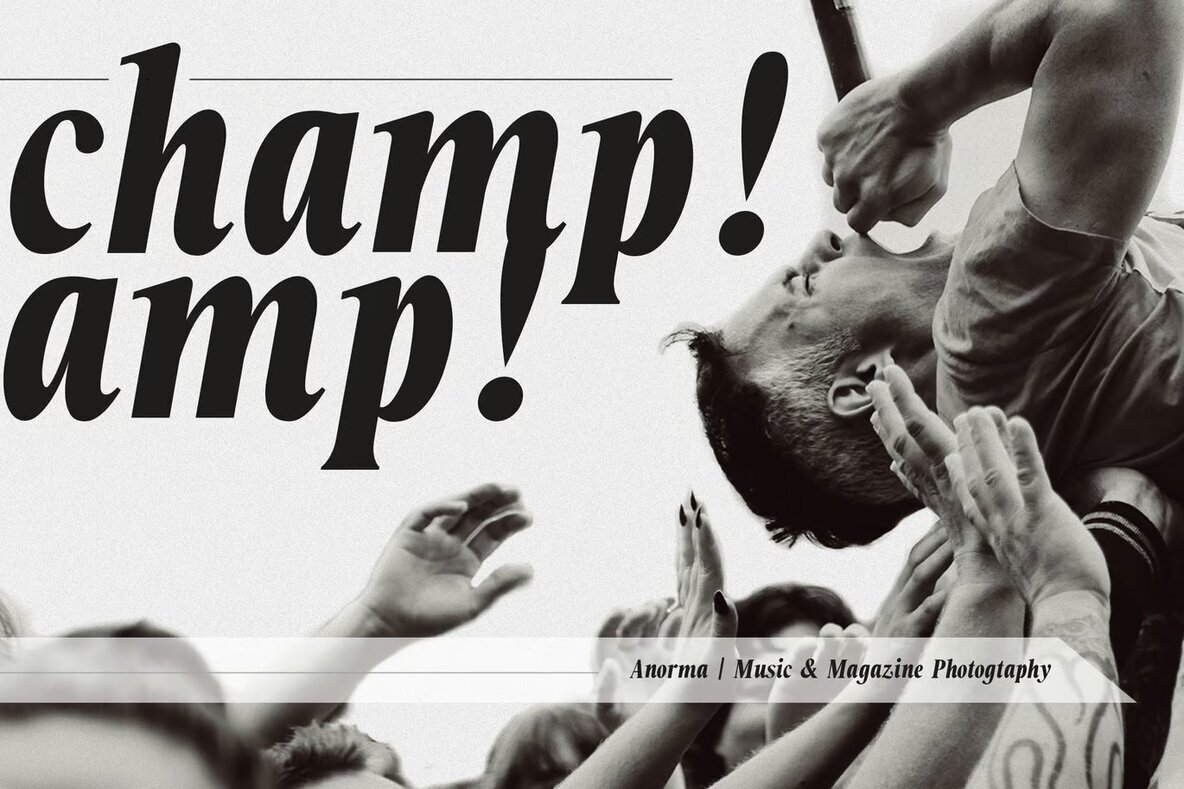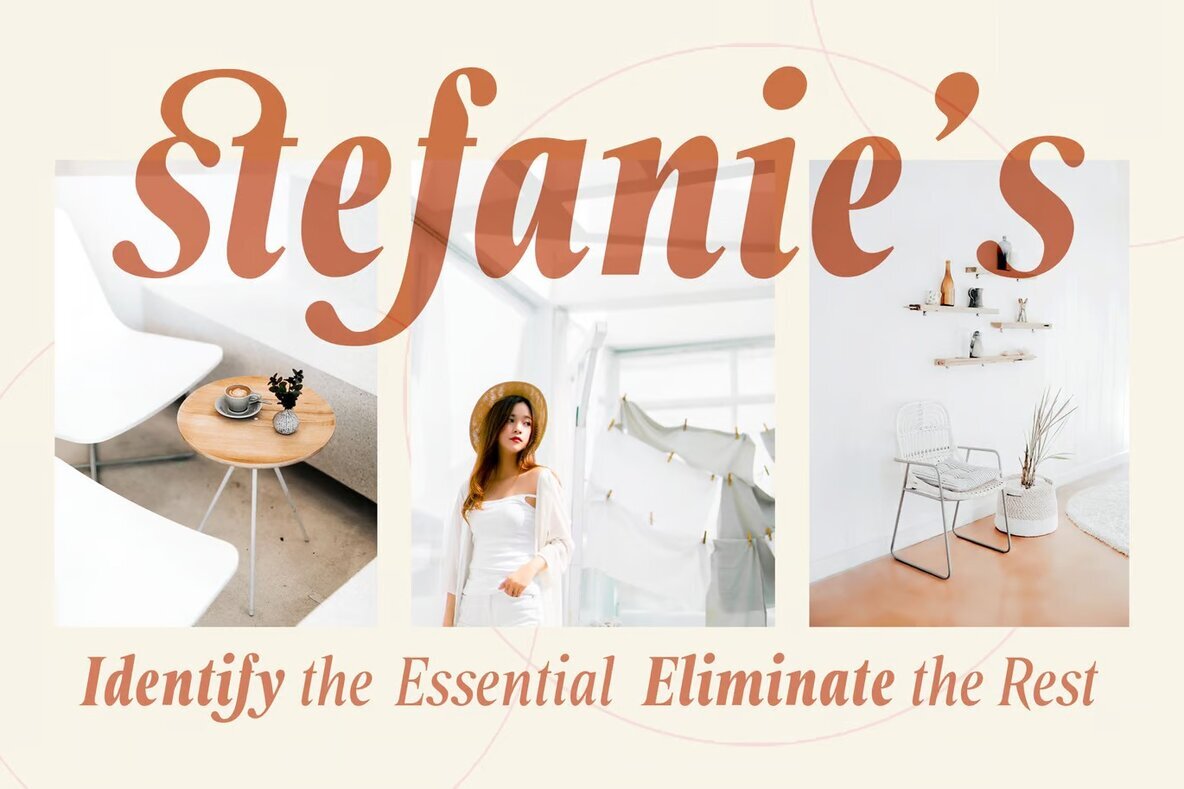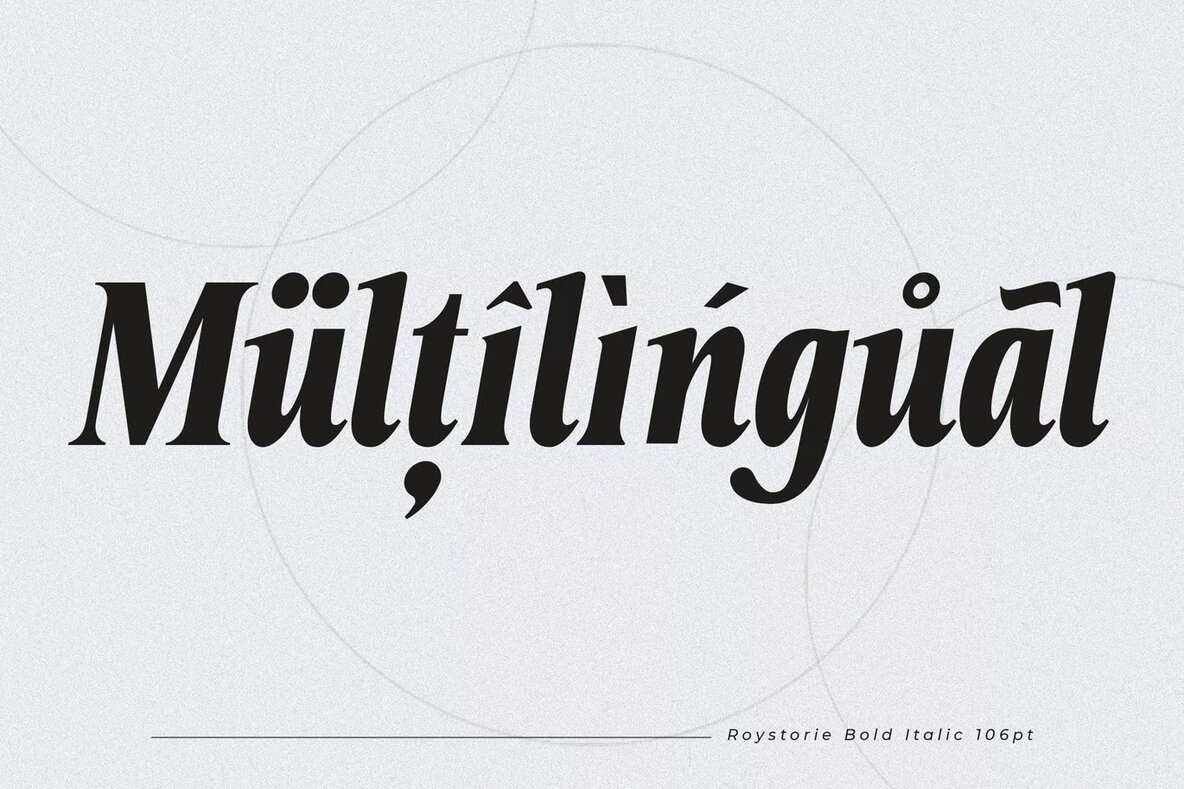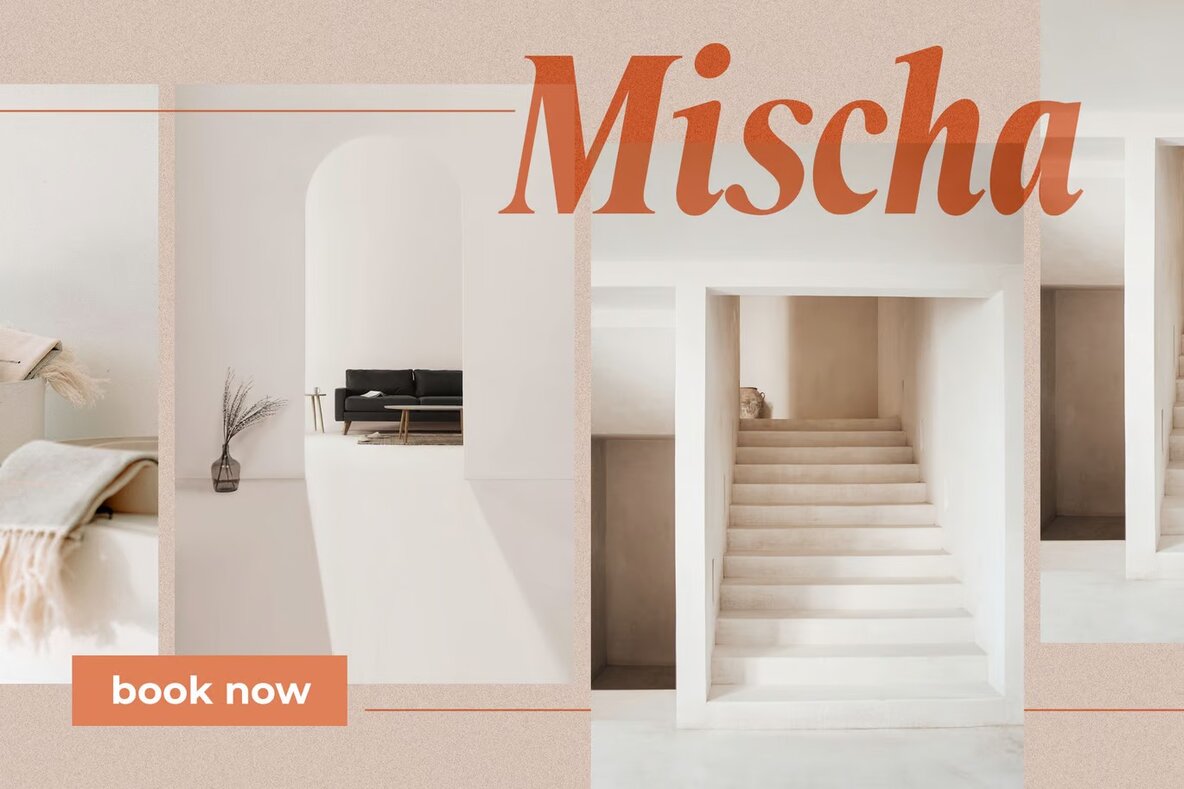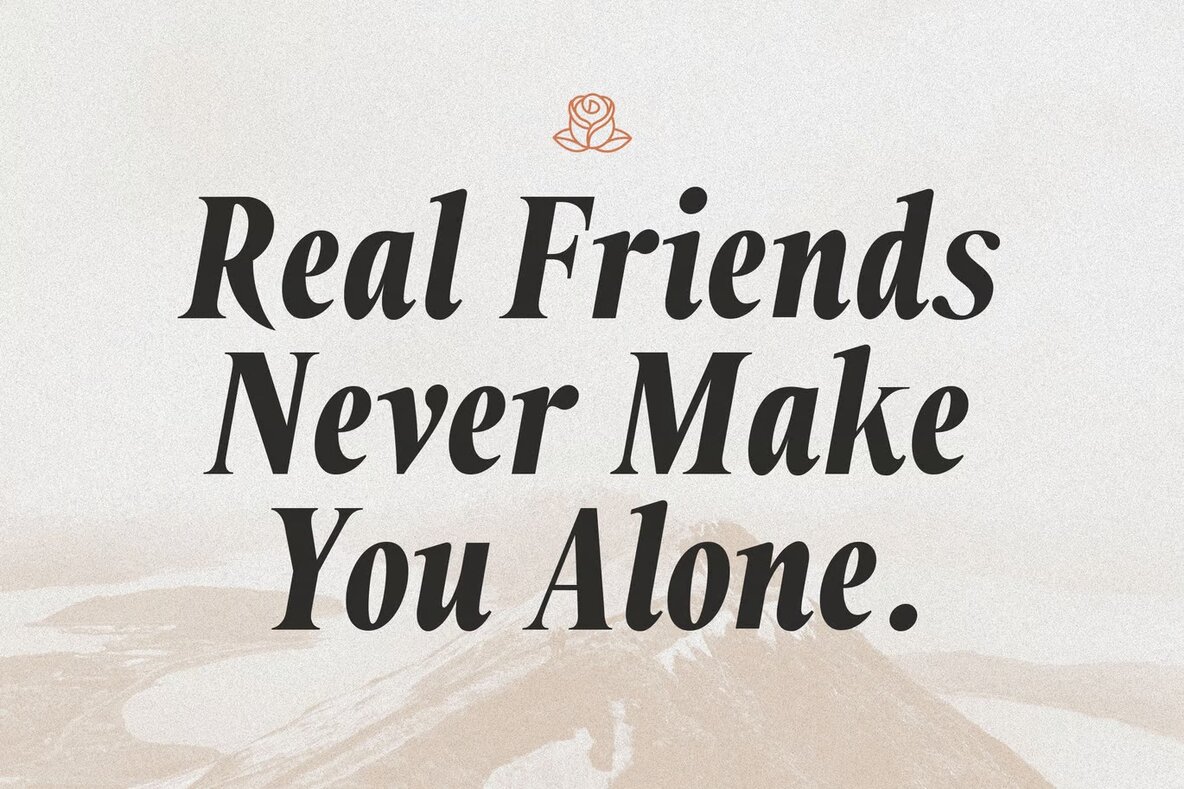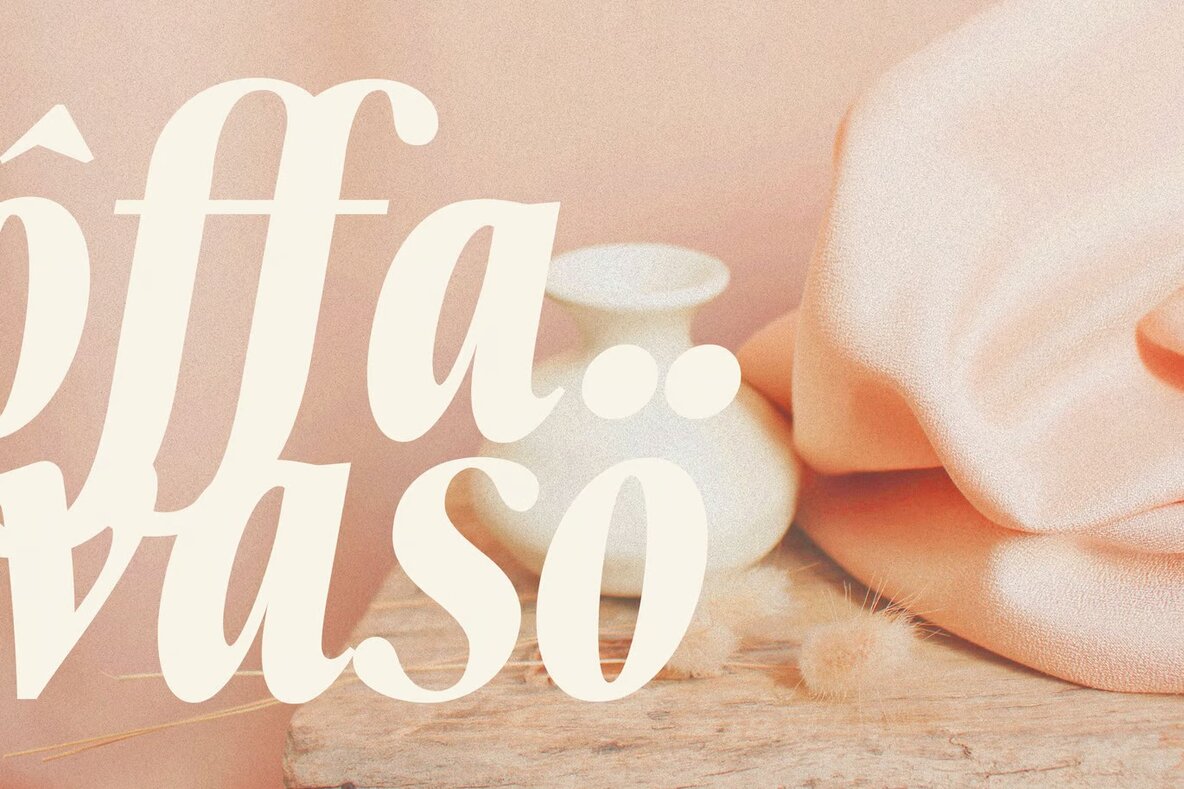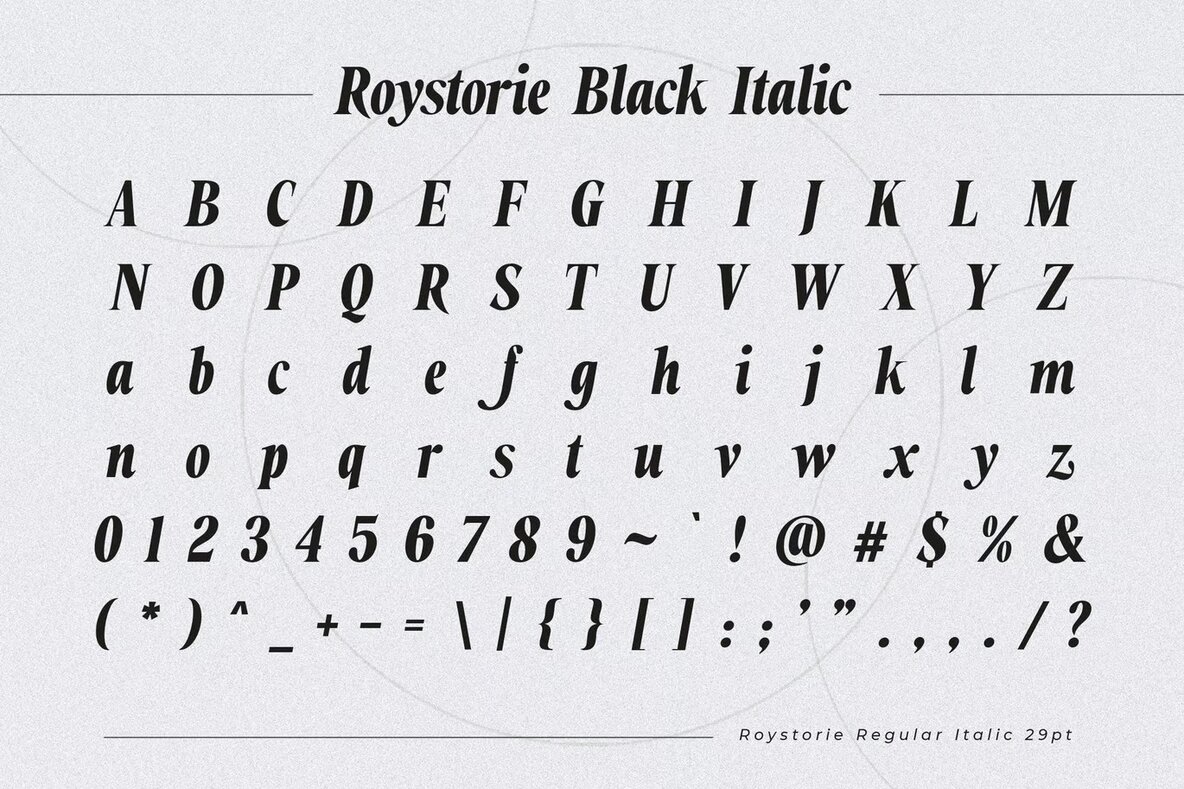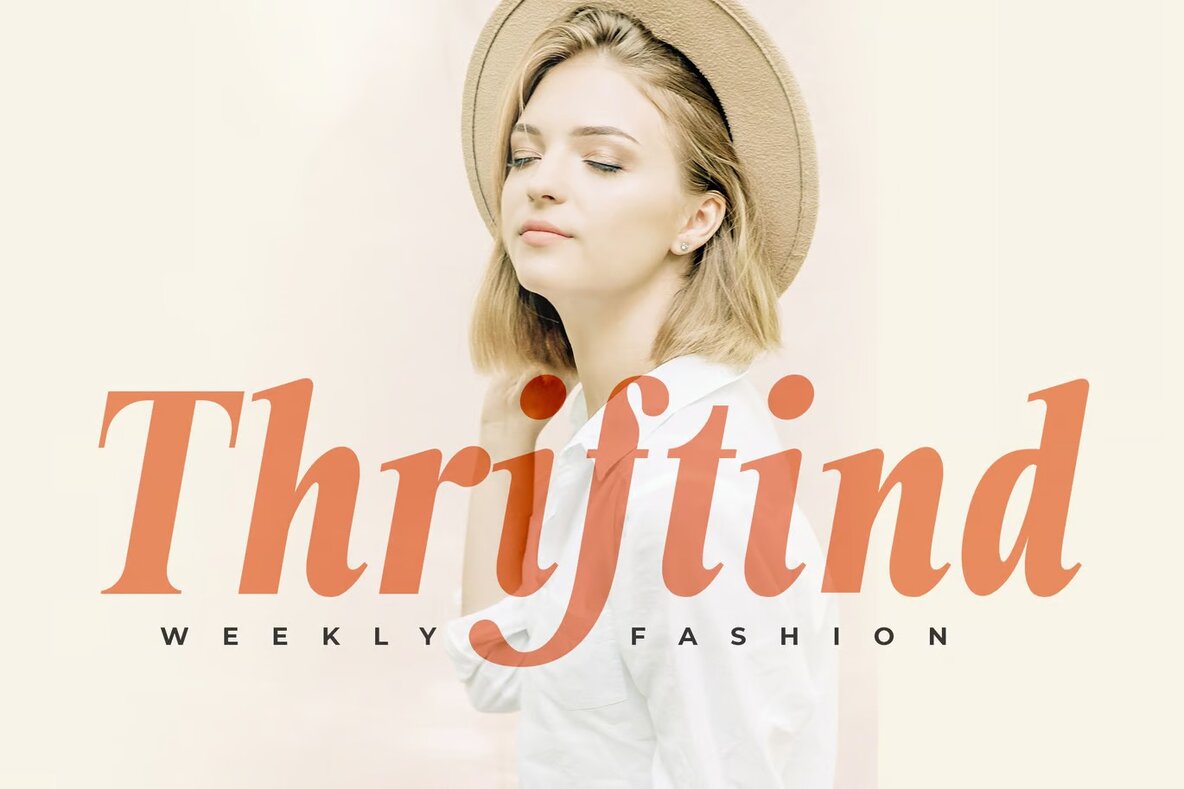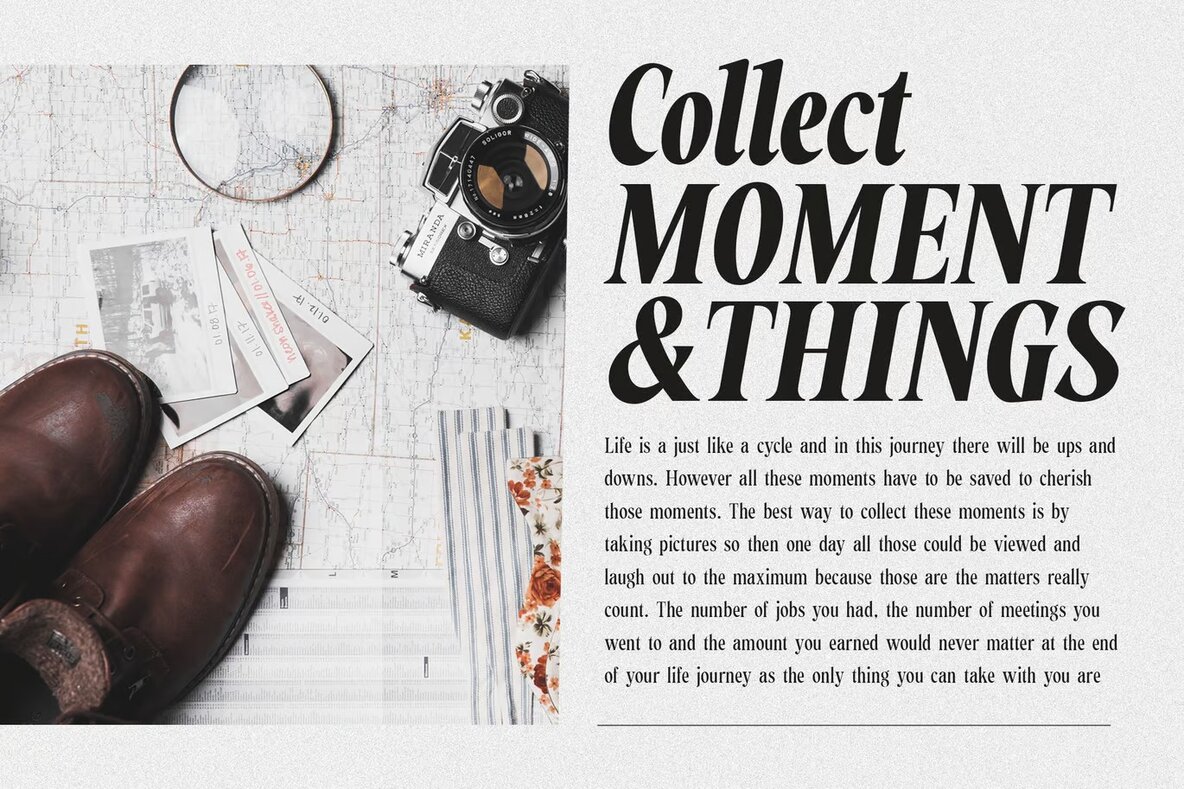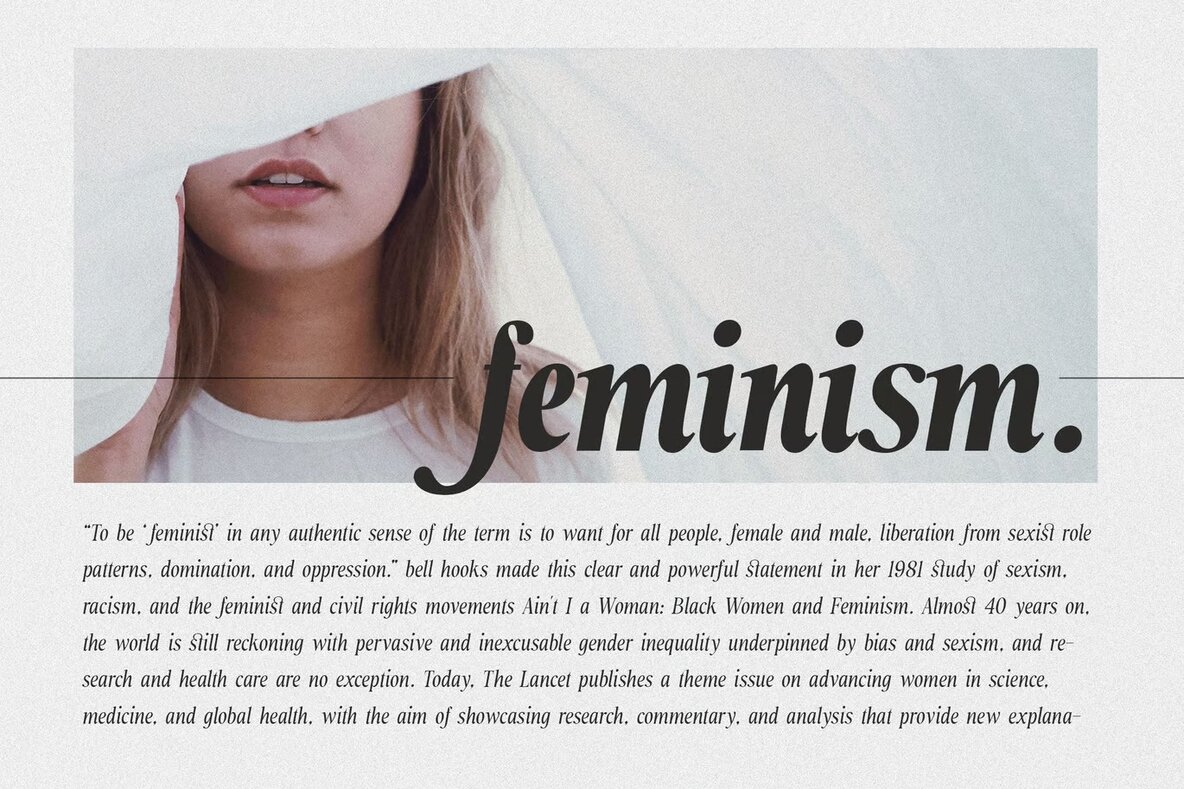
Roystorie Font
Roystorie BlackItalic
Roystorie Bold / Black Italic is a striking Retro 80s Display Serif Italic Font designed to make a bold statement. Its unique character is ideal for a variety of design projects that require a touch of nostalgia combined with modern flair. Perfectly suited for luxury logos and branding, it brings a sophisticated edge to editorial designs and fashion promotions. Roystorie's distinctive style is also a perfect match for art gallery branding, museums, and architectural projects, adding a vintage depth that resonates with historical themes.
This typeface excels in creating an elegant impression across different applications, from chic woman magazines and cosmetic brands to stationery and blog designs. Use it for modern advertising, captivating card invitations, and expressive lettering calligraphy art quotes. Decorate your spaces with its dynamic flair in home decor, and bring your book covers and special event designs to life. Achieve a timeless look with Roystorie Italic Font, merging past aesthetics with present-day design sensibilities.